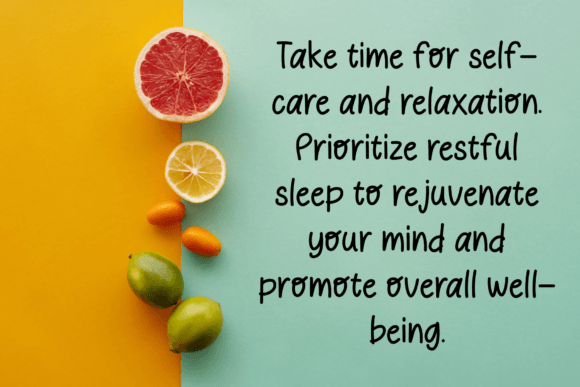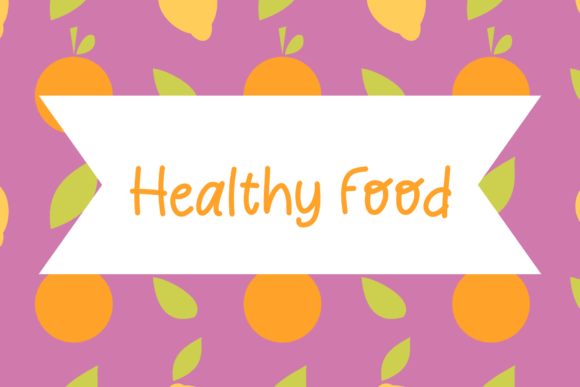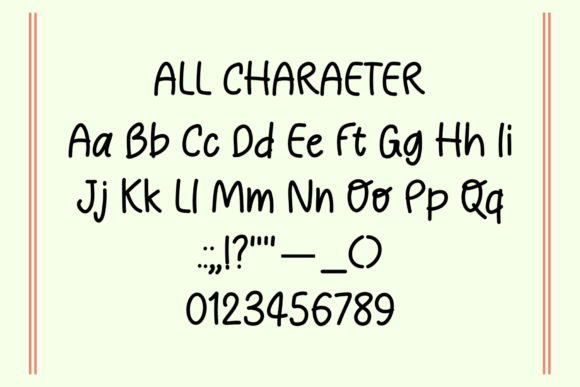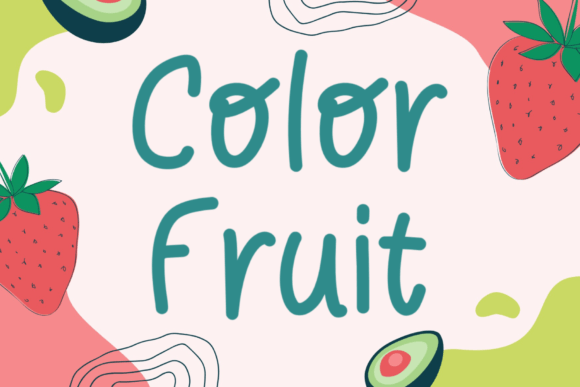
Introducing Color Fruit Font: The Perfect Blend of Vibrancy and Playfulness
I’ll never forget the design project that led me to discover Color Fruit font. I was working on a tropical-themed party invitation, and I just couldn’t find the right font to capture the fun and playful vibe I was going for. That was until I stumbled upon Color Fruit font, and it completely transformed my design. In this article, I’ll share my experience with this delightful font, its features, and how to make the most of it in your designs.
A Personal Review of Color Fruit Font
- ✨ Vibrant and Playful Design: Color Fruit font is inspired by juicy fruits, and it shows in its lively and colorful letterforms.
- ✅ Easy to Read: Despite its playful design, the font is surprisingly easy to read, making it perfect for body text and headings.
- 🎉 Perfect for Themed Designs: Whether you’re creating invitations, menus, or social media graphics, Color Fruit font is ideal for designs that require a fun and festive touch.
While Color Fruit font is amazing, there are a few things to keep in mind:
- 🤔 Limited Use in Formal Designs: Due to its playful nature, Color Fruit font might not be the best choice for formal designs or professional documents.
- ⚠️ Color Variations: While the font comes in various colors, some users might find the color palette limited.
The Backstory Behind Color Fruit Font
Color Fruit font was designed by a team of creatives who wanted to capture the essence of fresh fruits in a font. Inspired by the vibrant colors and playful shapes of fruits, they created a font that’s both fun and functional. Whether you’re a designer, crafter, or creative hobbyist, Color Fruit font is sure to bring a burst of freshness to your designs.
| What is Color Fruit font? | Color Fruit font is a playful, vibrant font inspired by juicy fruits. |